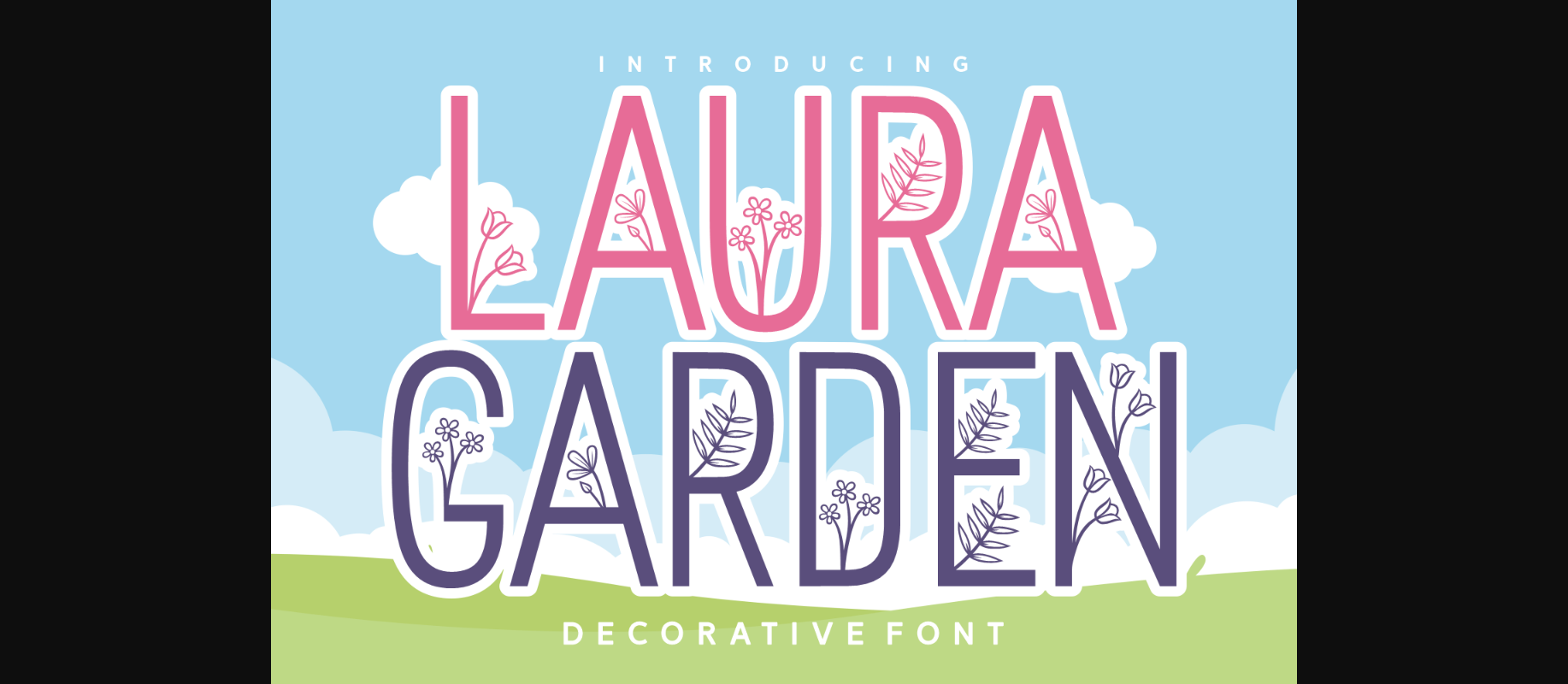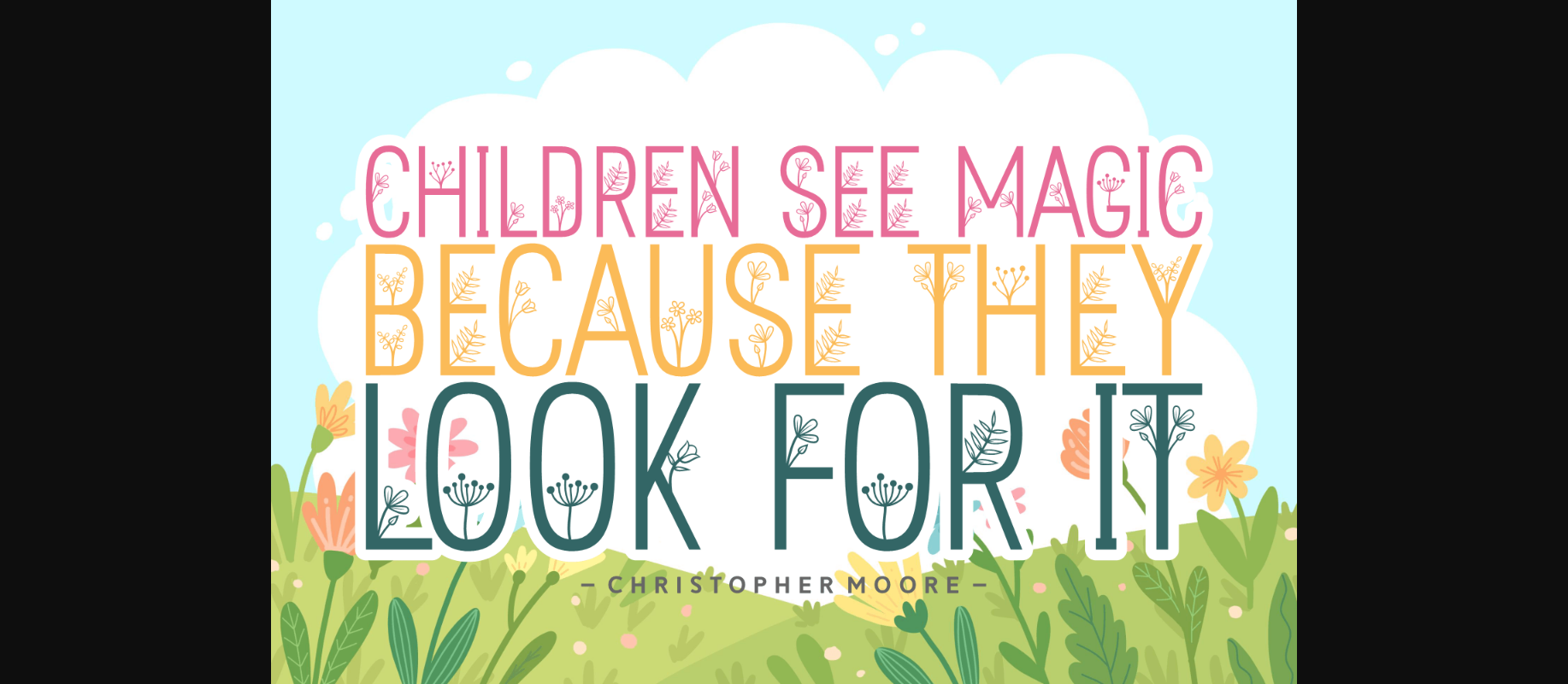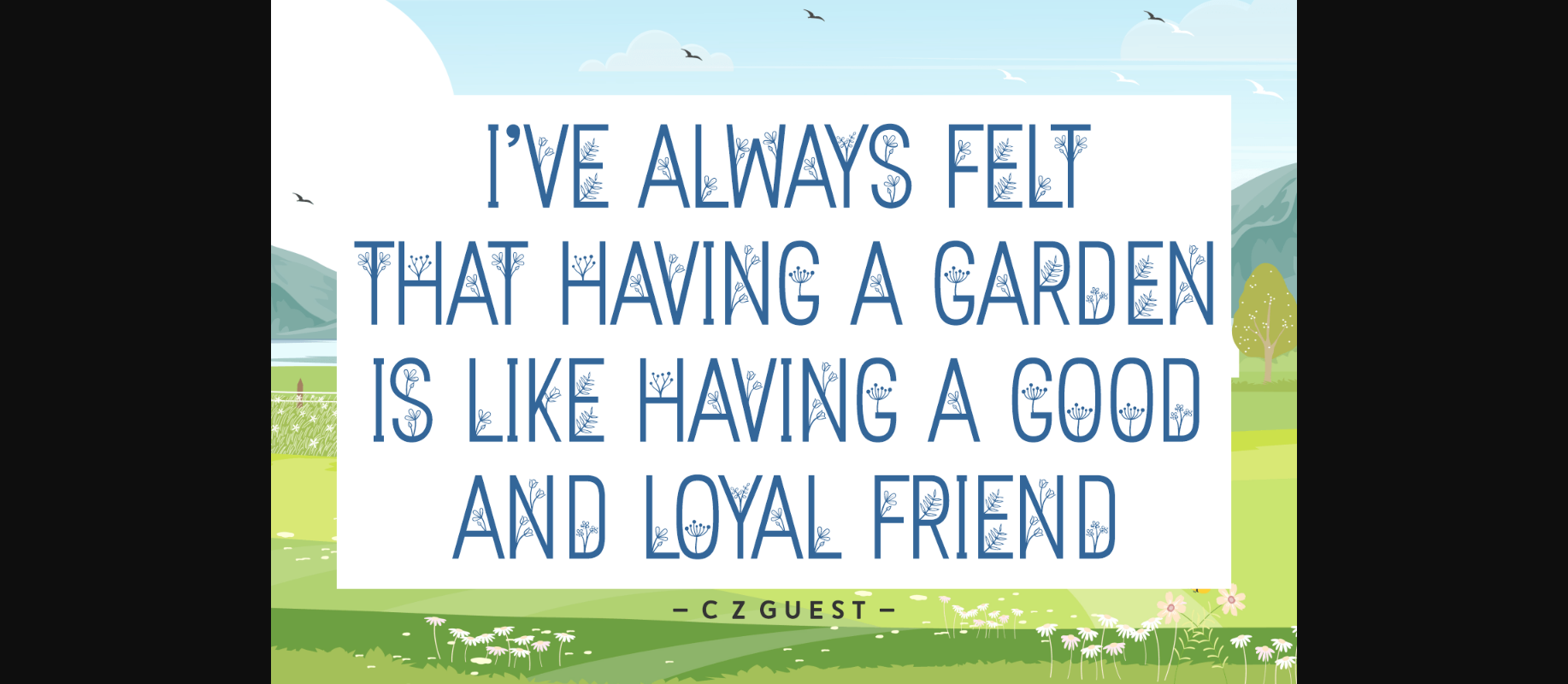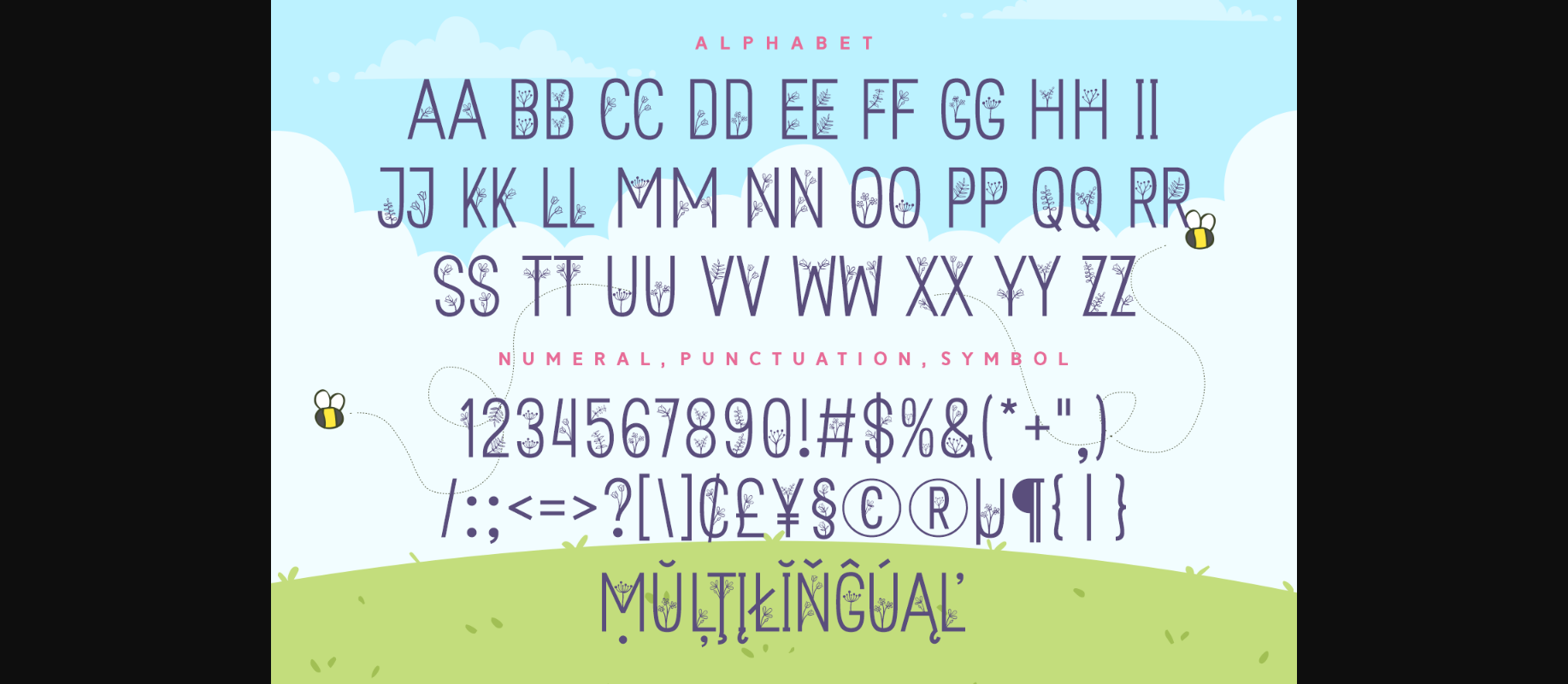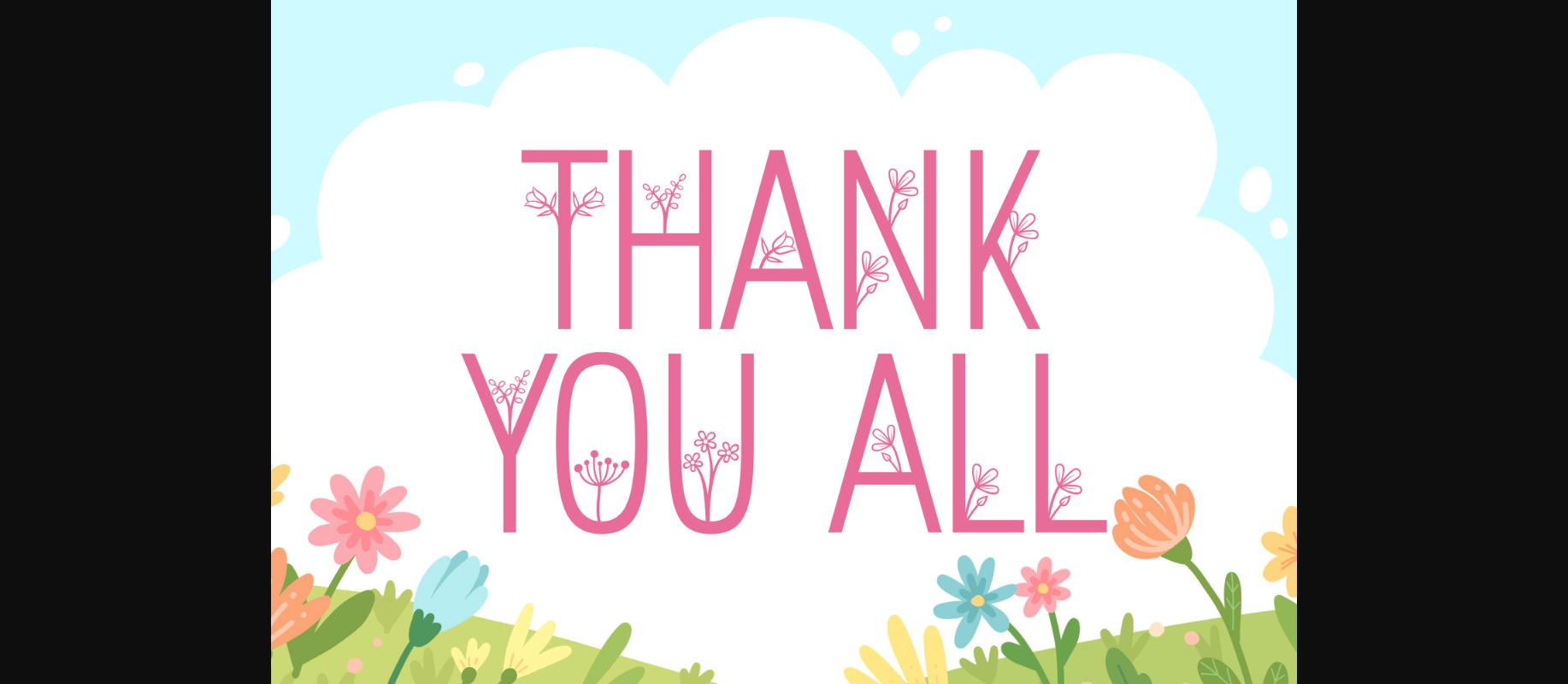
Laura Garden Font
About Laura Garden Font
Laura Garden is a beautiful decorative font with a botanical motive. This lovely floral font is ideal for nature-themed projects, branding florist shops, crafting projects, and more. Use it to express your creativity!